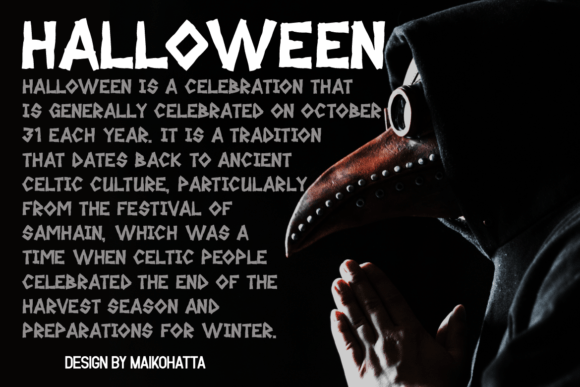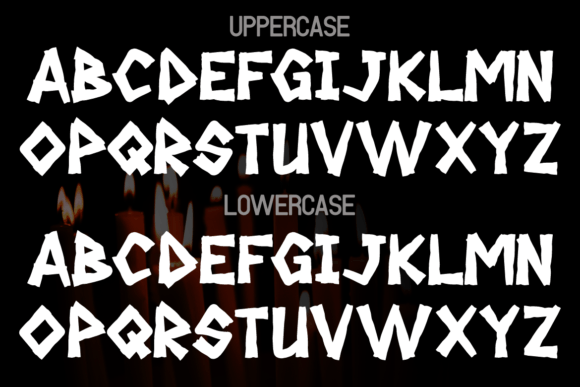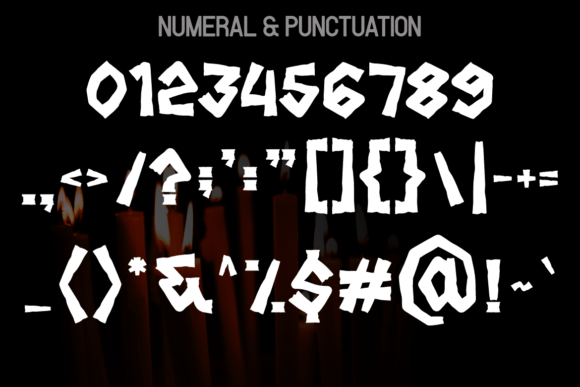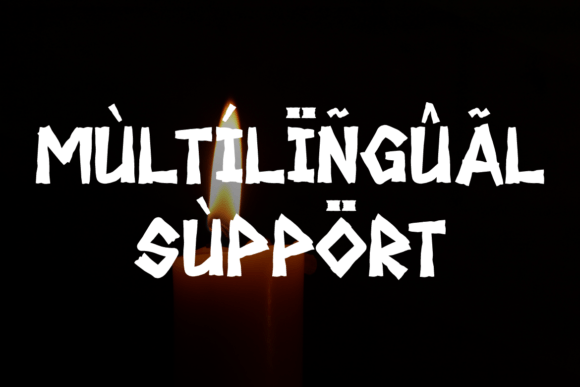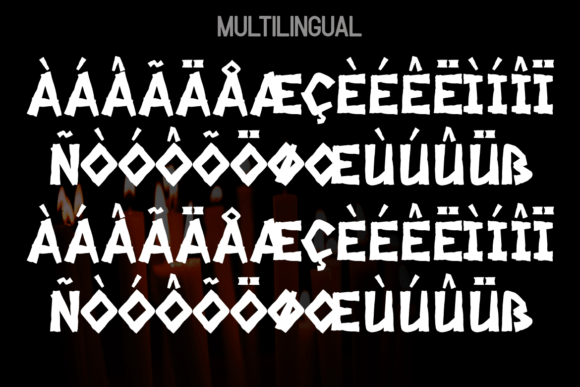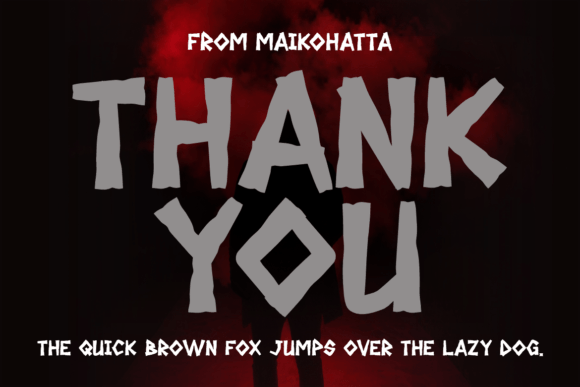
Introducing Halux Font: The Spooky Display Font for Halloween Celebrations
Are you looking for a font that can add a spooky touch to your Halloween-themed designs? Look no further than Halux Font, a display font specifically designed to create a mysterious atmosphere and depict the spirit of Halloween celebrations. In this article, we’ll explore the features and uses of Halux Font, and how it can elevate your designs for the spookiest time of the year.
What is Halux Font?
Halux Font is a unique display font that embodies the essence of Halloween. Its design is inspired by the spooky and mysterious elements of the holiday, making it perfect for creating eye-catching and eerie designs. The font’s style is characterized by its bold and distressed look, which adds a sense of eeriness and foreboding to any text.
Features of Halux Font
Halux Font comes with a range of features that make it an ideal choice for Halloween-themed designs. Some of its key features include:
- Unique Design: Halux Font has a one-of-a-kind design that sets it apart from other fonts. Its bold and distressed style makes it perfect for creating eye-catching headlines and titles.
- High-Quality Vectors: The font is designed with high-quality vectors, ensuring that it remains crisp and clear even at large sizes.
Uses of Halux Font
Halux Font is a versatile font that can be used in a variety of Halloween-themed designs, including:
- Party Invitations: Create spooky and eye-catching invitations for Halloween parties and events.
- Posters and Flyers: Design bold and eerie posters and flyers to promote Halloween events and activities.
- Merchandise Designs: Use Halux Font to create spooky and unique designs for Halloween-themed merchandise, such as t-shirts, mugs, and trick-or-treat bags.
- Greeting Cards: Create spooky and fun greeting cards for Halloween, using Halux Font to add a touch of eeriness to your designs.
- Warning Signs: Design warning signs and cautionary notices with a spooky twist, perfect for Halloween-themed events and attractions.
- Website Designs: Use Halux Font to add a touch of Halloween spirit to your website designs, creating a spooky and immersive experience for visitors.
Tips for Using Halux Font
To get the most out of Halux Font, here are some tips for using it in your designs:
- Experiment with Colors: Try pairing Halux Font with different colors to create a range of effects, from bold and bright to dark and eerie.
- Play with Texture: Add texture to your designs by combining Halux Font with different textures and patterns, such as blood splatters or spider webs.
- Mix and Match: Combine Halux Font with other fonts to create a unique and eye-catching design.
Halux Font is a unique and versatile display font that’s perfect for adding a spooky touch to your Halloween-themed designs. With its bold and distressed style, high-quality vectors, and ease of use, it’s an ideal choice for designers and crafters looking to create eye-catching and eerie designs. Whether you’re designing party invitations, posters, merchandise, or website designs, Halux Font is sure to elevate your creations and add a touch of Halloween spirit.